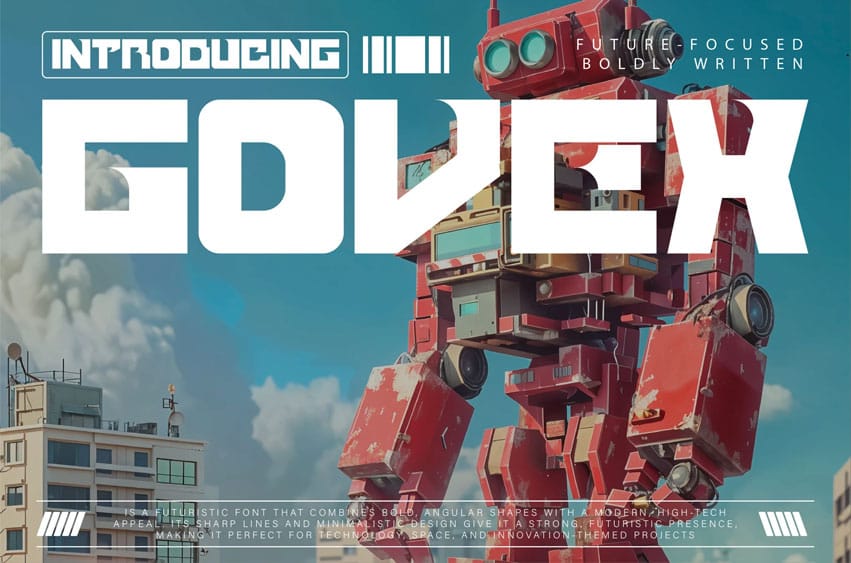
Govex Font is a futuristic font that combines bold, angular shapes with a modern, high-tech appeal.
Its sharp lines and minimalist design give it a strong, futuristic presence, making it perfect for technology-, space-, and innovation-themed projects.